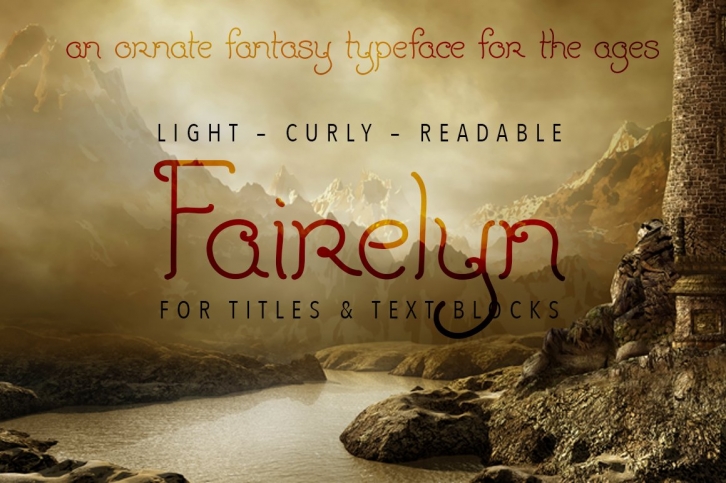
It’s hard to find a whimsical font that a) incorporates curls but remains readable in large blocks, b) is properly kerned, and c) isn’t too precious to actually use.
Fairelyn is aims to achieve a balance of readability and fantasy ornamentation—whether you’re typesetting an epic poem or looking for a convincing “neat handwriting†display face.